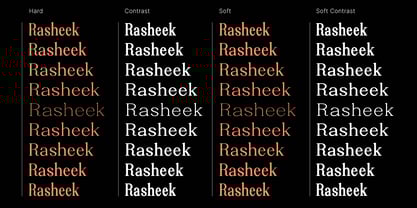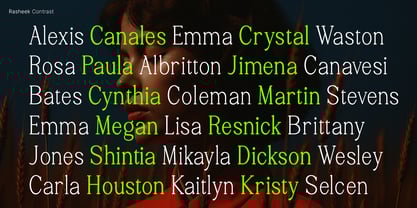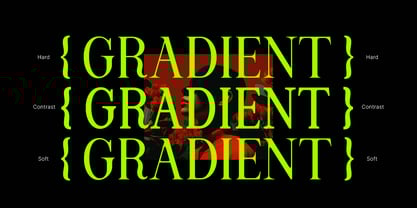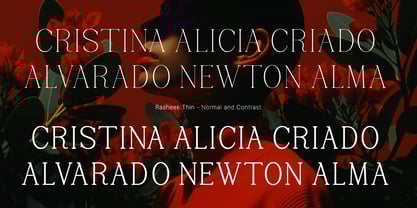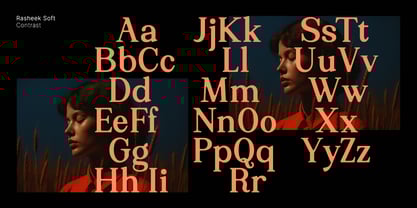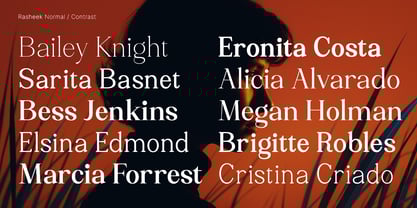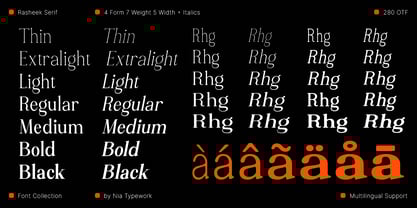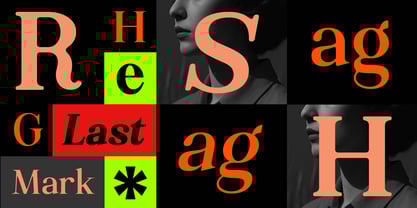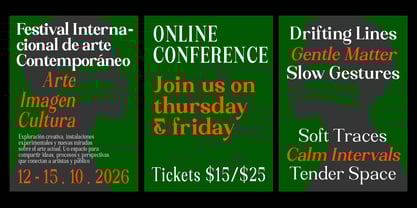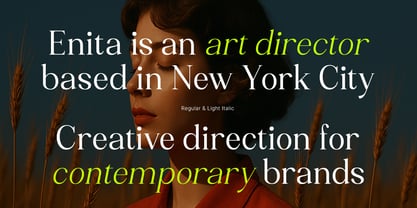
Rasheek
by Nia Typework
The Rasheek Font Family was designed by Nia Octarina and published by Nia Typework. Rasheek contains 190 styles and family package options.
Rasheek is a modern serif font family with an elegant and expressive character. It blends classic proportions with a contemporary touch, delivering a bold presence for headlines while remaining refined for display use. Its strong thick–thin contrast, sharp serif details, and luxurious rhythm make Rasheek ideal for editorial design, premium branding, fashion, and high-end visual campaigns. Designed to perform beautifully in both print and digital media, Rasheek provides excellent readability at large sizes and a distinctive visual voice that elevates any composition. Featuring 7 weights, 5 widths, and a total of 140 styles, Rasheek offers exceptional flexibility for diverse design needs, allowing designers to create consistent yet dynamic typographic systems.